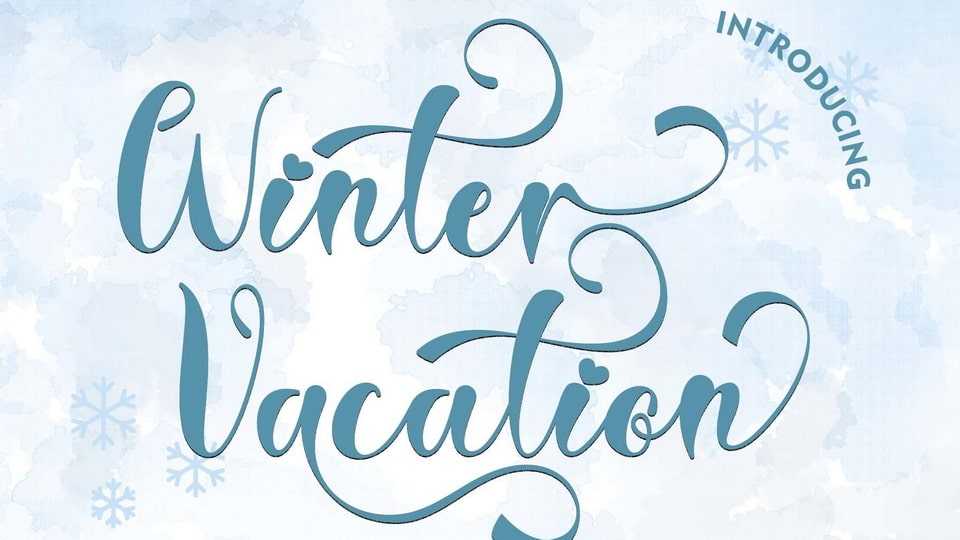
Download Winter Vacation font, a beautiful script typeface with a whimsical feel. It is suitable for winter, Christmas, Valentine’s Day, cyber week, weddings, and other moments.